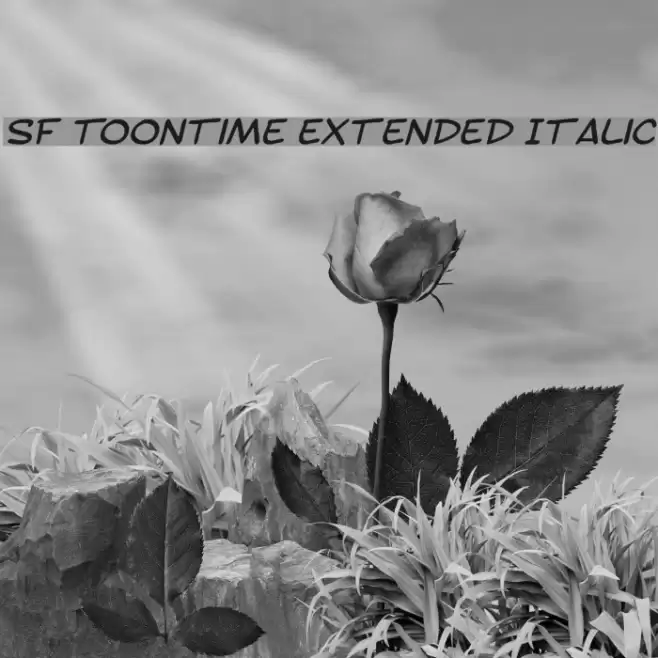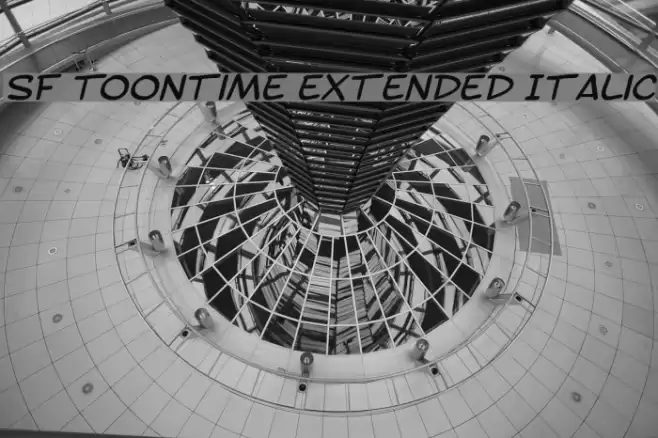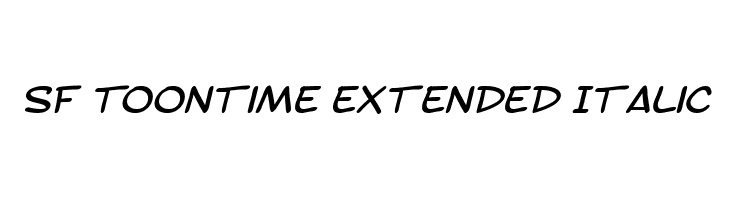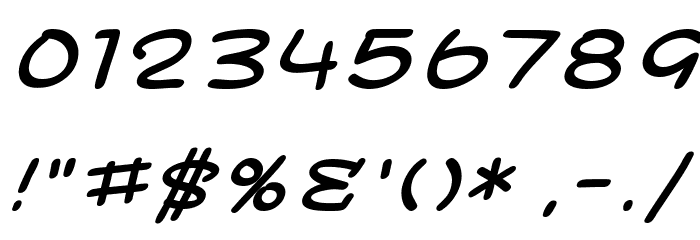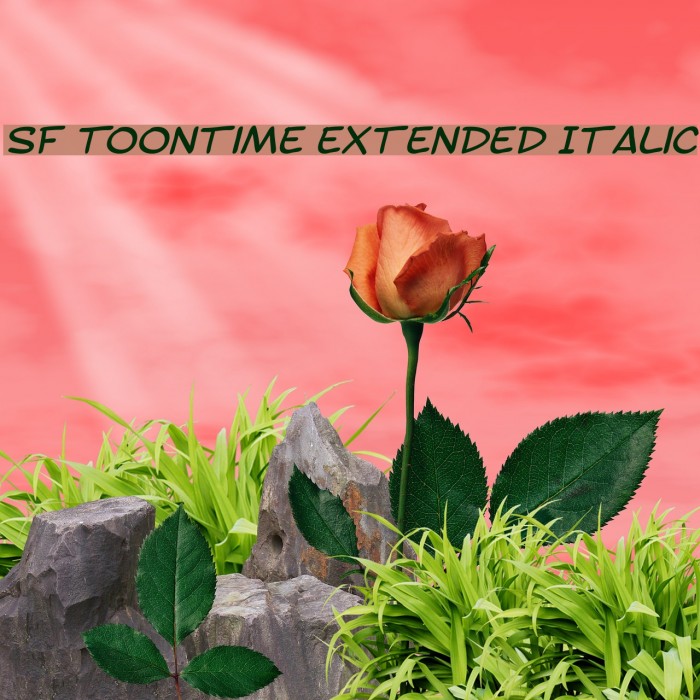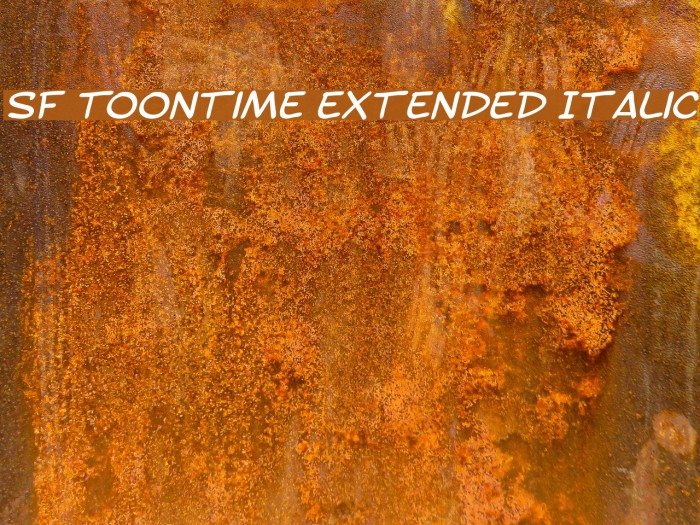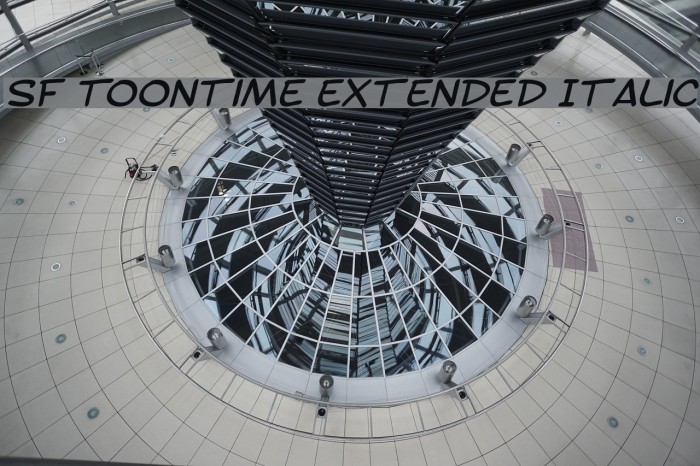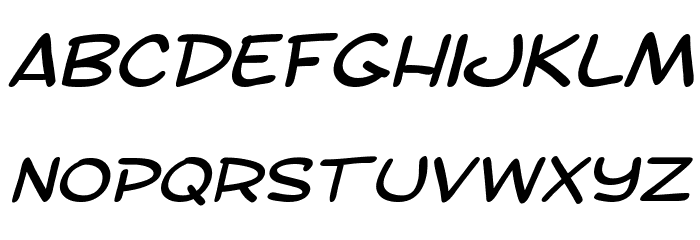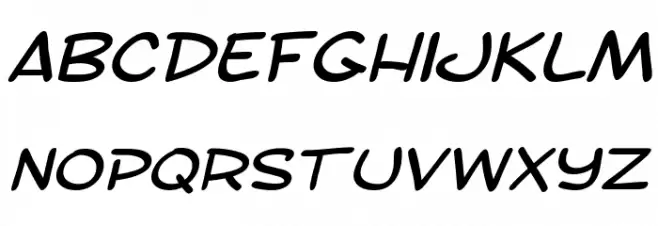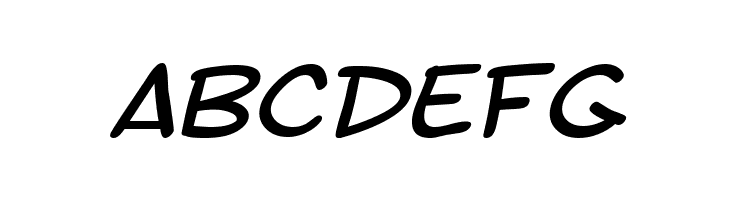
SF Toontime Extended Italic Font
SF Toontime Extended Italic Description
This playful and dynamic font features a handwritten style with a slight slant, giving it an energetic and informal appearance. The characters are rounded and smooth, with a consistent stroke width that maintains readability while adding a touch of whimsy. The uppercase and lowercase letters are well-balanced, and the numerals are clear and distinct. Special characters are included, enhancing its versatility. This font is perfect for projects that require a friendly and approachable feel, such as children's books, comic strips, or casual branding.
A playful, handwritten font with a slight slant and smooth, rounded characters from Comic fonts.
- Proposed Projects: Ideal for children's books, comic strips, casual branding, and playful designs.
- Width: Expanded
- Overall Style: Playful
- Use Case: Headlines, Logos, Informal Text